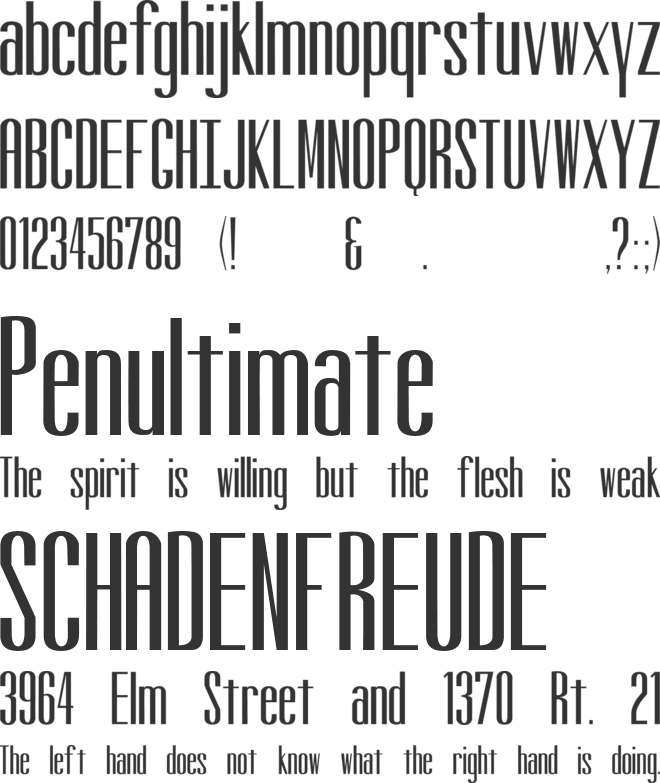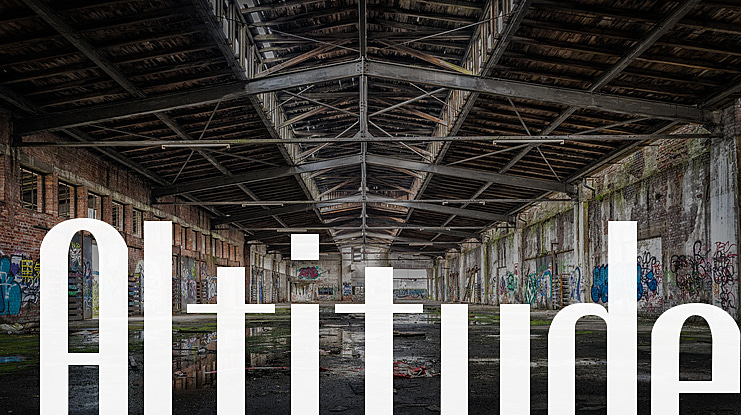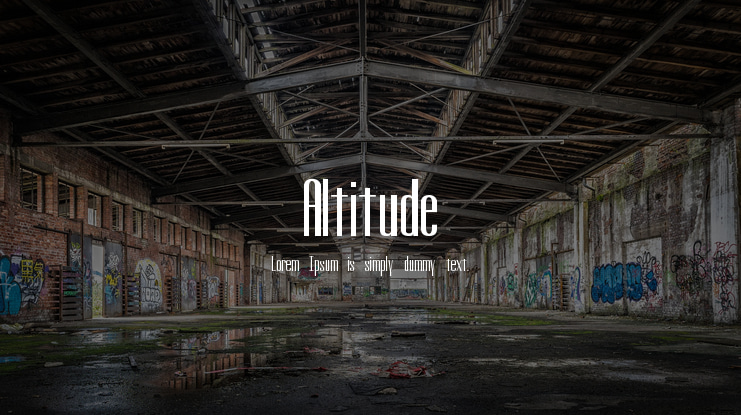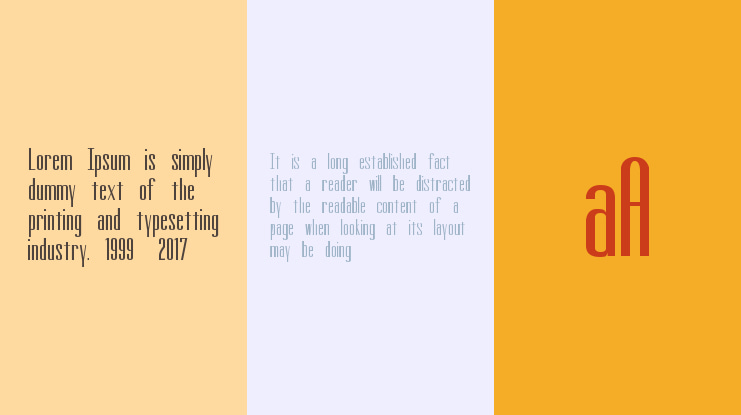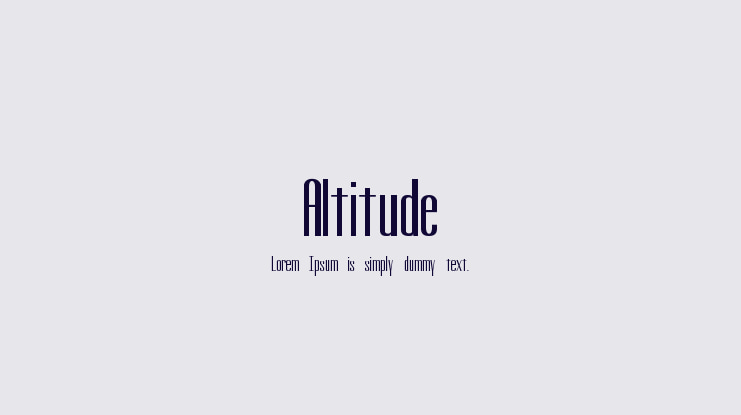
Altitude Font
Altitude is a modern display face inspired by the sleek beauty of skyscrapers. If you use Altitude on something really cool, I'd love to know, so feel free to message me about it!